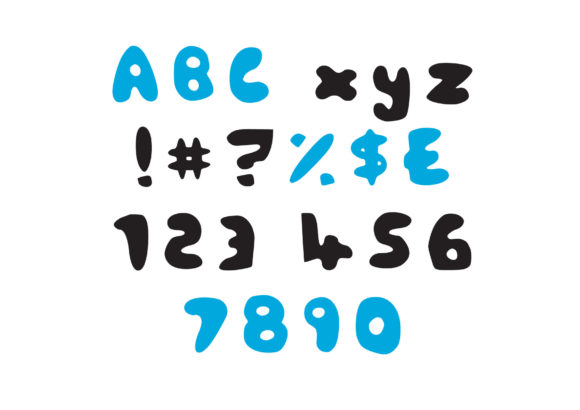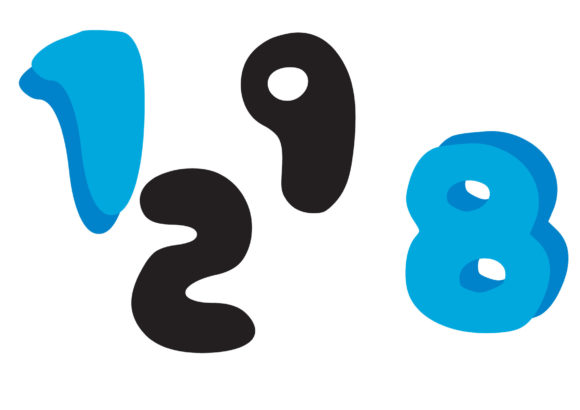
Introduction to Round & Lazy Font
Who hasn’t experienced that moment of pure creative bliss when you stumble upon the perfect design resource for your next project? For me, it was when I discovered the Round & Lazy Font. Its playful, rounded characters immediately caught my eye and sparked a wave of inspiration for a children’s activity I was working on.
As designers, we’re constantly on the lookout for high-quality fonts that bring our creative projects to life. The Round & Lazy Font is more than just a design element – it’s a key to unlocking the authenticity and playfulness that’s essential for any project aimed at kids. With its transparent background, it’s perfect for creating engaging graphics that pop. And the best part? It’s available for a free download, making it an invaluable addition to any design arsenal.
Key Features of Round & Lazy Font
- High-quality design resource ideal for creative projects, offering a unique and stylish touch.
- Features a transparent background, allowing for easy customization and blending with other design elements.
- Unique characteristics include its rounded edges and relaxed feel, making it perfect for modern and minimalist designs.
- Supports multiple languages, ensuring its versatility and suitability for a wide range of creative projects.
Honest Review: Round & Lazy Font
I recently stumbled upon the Round & Lazy Font and was eager to give it a try for my current design project. The first thing I noticed was the high quality of the font, with smooth lines and a consistent style.
One of the things that works well about this font is its versatility. ✨ It can be used for a wide range of creative projects, from logos to brochures, and its modern design makes it a great choice for any high-end design resource. Additionally, the transparent background option is a big plus, making it easy to customize and integrate into any design.
- Great for creative projects
However, there are a few limitations to be aware of. ⚠️ The font library is relatively small, so if you’re looking for a specific style or character, you may be out of luck.
Overall, I was impressed with the Round & Lazy Font and would definitely recommend it for any design project. Its high quality design and versatility make it a great addition to any design resource library.
Round & Lazy Font: A Comprehensive Guide
Tips for Getting the Most Out of Round & Lazy Font
Experiment with different font sizes, colors, and styles to create a unique visual identity for your project. Use the font in combination with other design elements to create a cohesive and engaging design.
Round & Lazy Font is ideal for creating invitations, social media graphics, and marketing materials. Its high-quality design and transparent background feature make it perfect for use in a variety of creative projects.